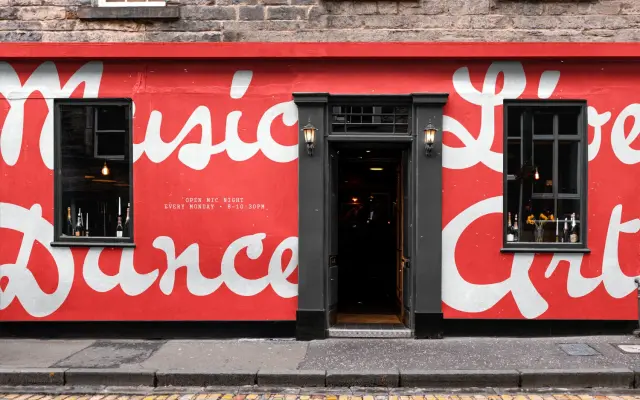
Pennline Script
A digitised revival of Bulletin (1899, Keystone Type Foundry) redrawn as a semi-connected brush script with extensive OpenType features for expressive typographic control.
Rooted in American hand-lettering tradition, the design preserves the expressive irregularity of its 1899 source while adapting glyphs for contemporary use across headlines, packaging and editorial. Over 1,050 characters cover 304 Latin-based languages, and eight stylistic sets alongside contextual alternates, multiple ligature sets and initial, medial and terminal forms give designers considerable room to vary its texture. The approachable vintage character suits projects seeking warmth and nostalgia without abandoning legibility.
A semi-connected brush-inspired script reviving the 1899 Bulletin typeface from Keystone Type Foundry; the design draws on American hand-lettering traditions with lively, irregular strokes characteristic of brush script.